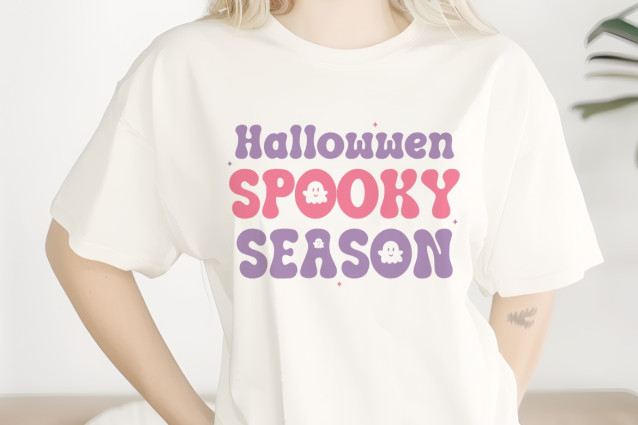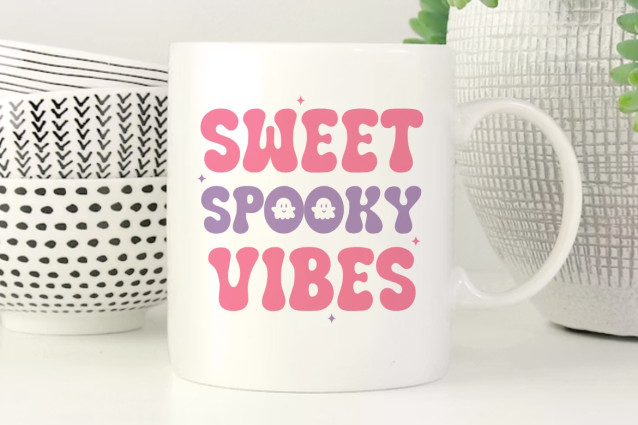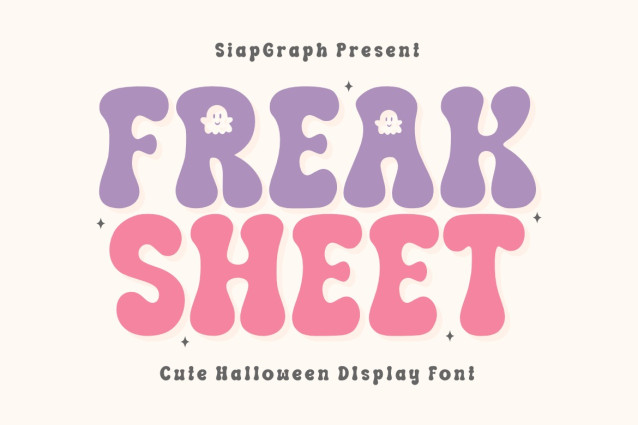
Freak Sheet Font
Freak Sheet is a fun and unique Cute Halloween Display Font specially crafted to bring a festive, spooky-cute vibe to your seasonal designs. Featuring bold, chunky, and wavy letterforms integrated with adorable little ghost accents, this typeface is designed to make your projects stand out with a playful and cheerful personality. Its clean and solid construction is optimized for the crafting community, ensuring a seamless and frustration-free experience for vinyl cutting, sublimation, and high-quality digital printing.
Perfect for: creating high-impact SVG cut files, Halloween party invitations, trick-or-treat tote bags, spooky-cute t-shirts, festive stickers, autumn mugs, and playful social media graphics. Whether you are a professional Print on Demand (POD) seller or working on a special DIY holiday project, this font provides the ideal balance of readability and whimsical charm.